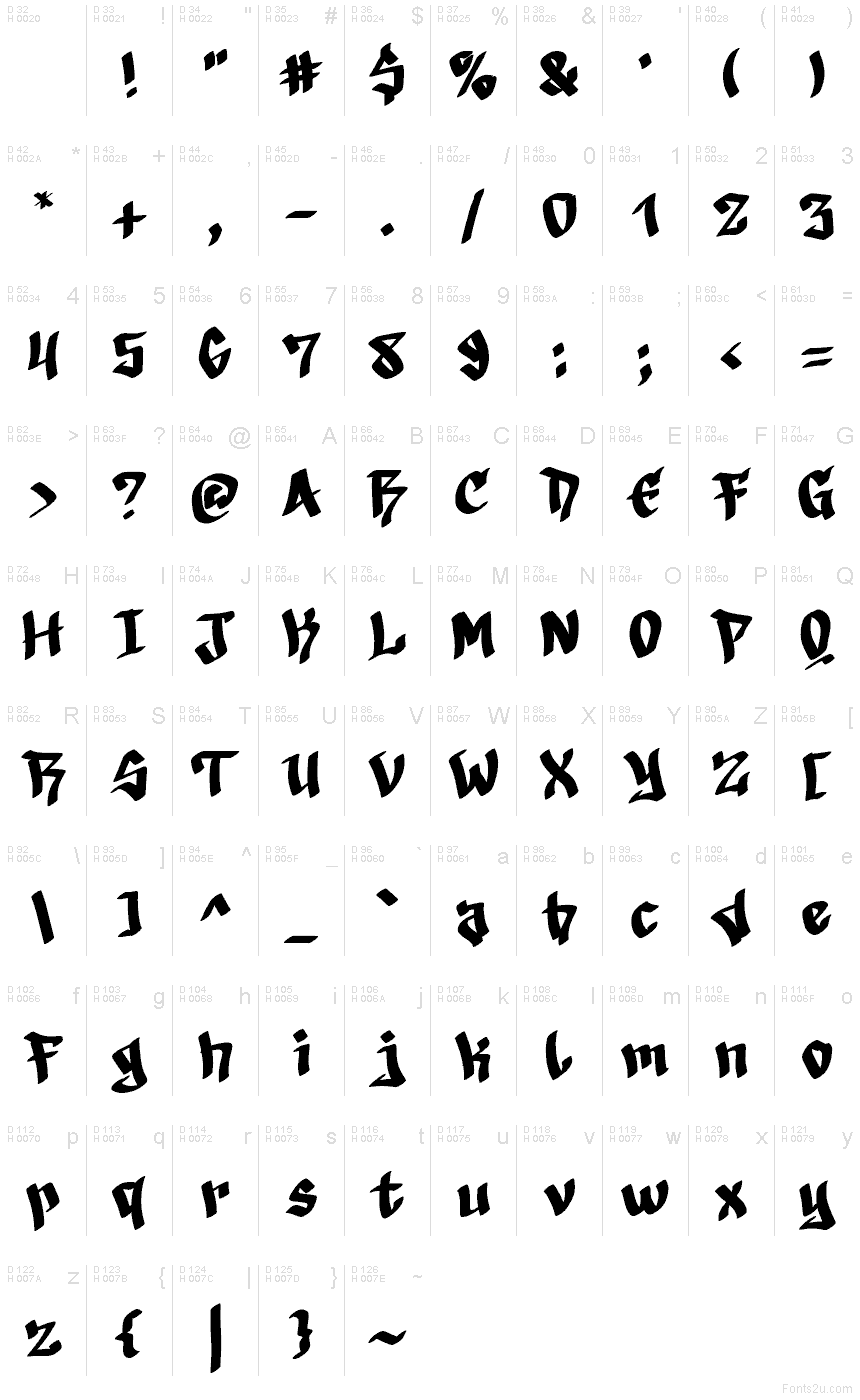
Death Stars font by LetterStock Std is a free graffiti font. It fuses streetwise swagger with a chiseled, blackletter bite-thick, inky strokes snap into sharp angles, while chunky curves keep the letters readable. The texture feels hand-cut and slightly splattered, giving headlines a gritty, high-impact presence without turning into chaos.
Using Death Stars, you get instant attitude for album covers, horror posters, esports branding, streetwear labels, skate decks, and sticker packs. The compact rhythm holds tight in short phrases, so lean into big sizes and short lines; this free font loves the spotlight. For body copy, pair it with a plain, modern sans to let the jagged forms breathe and carry the mood.